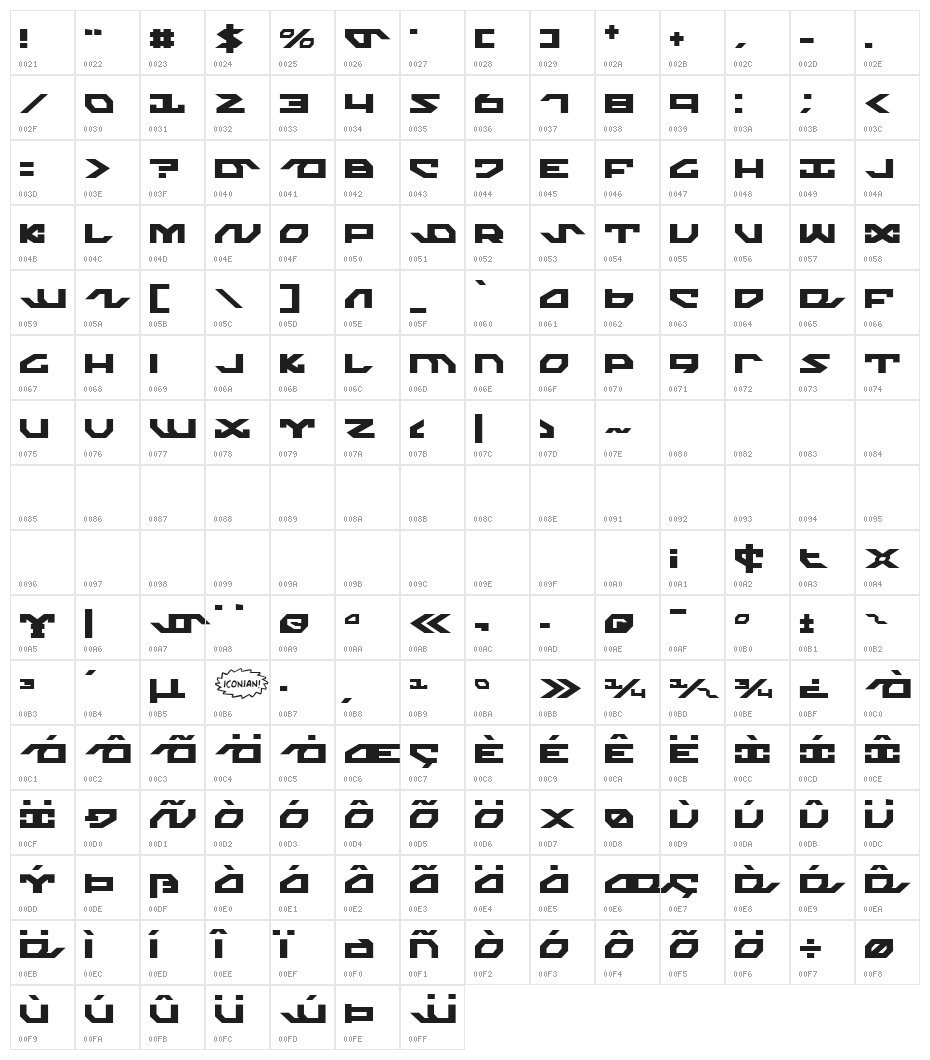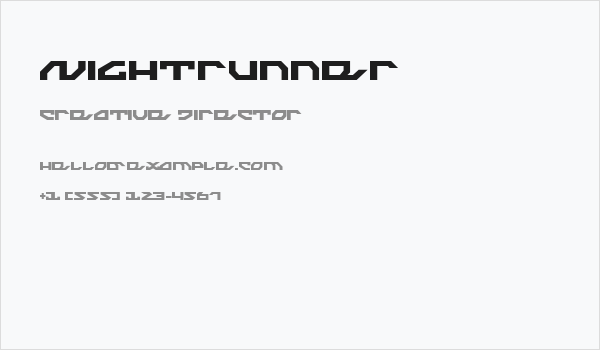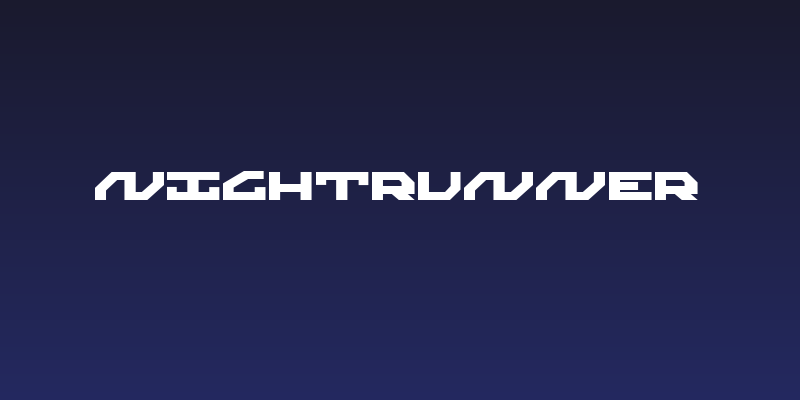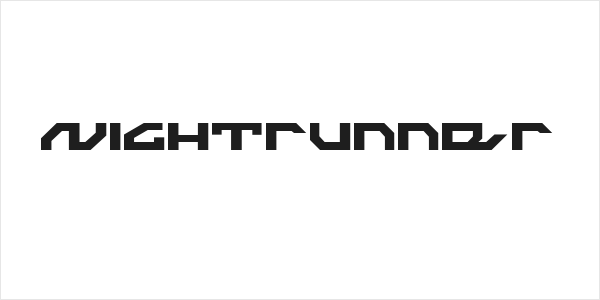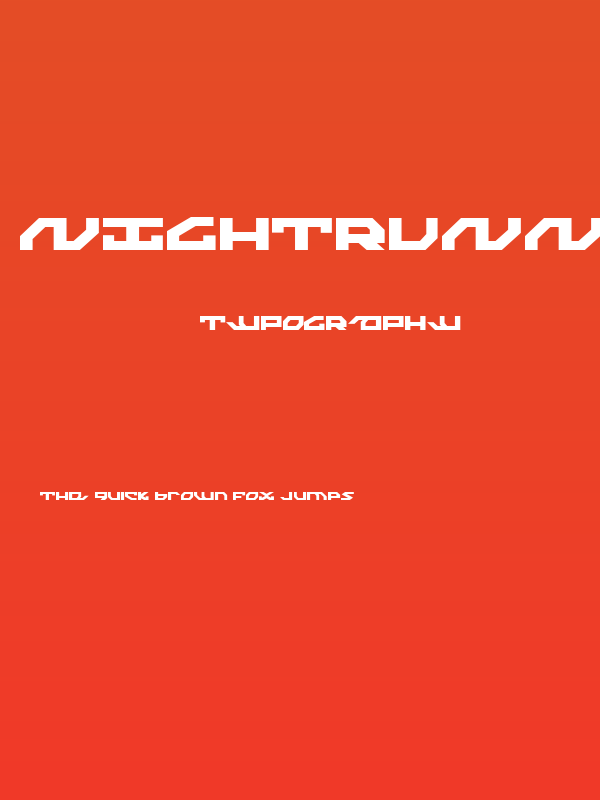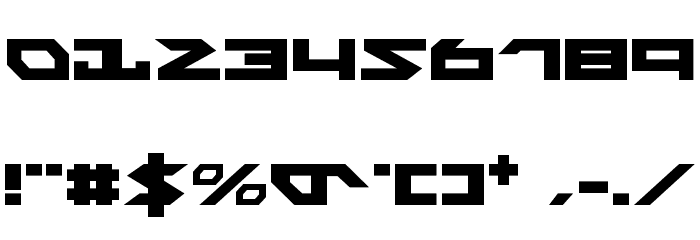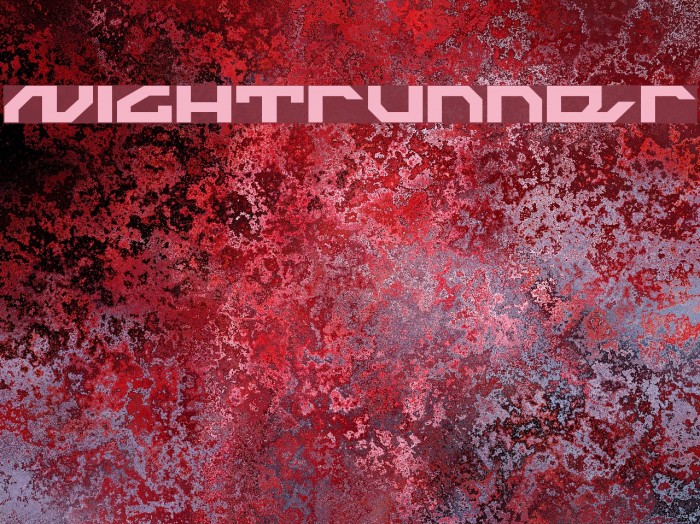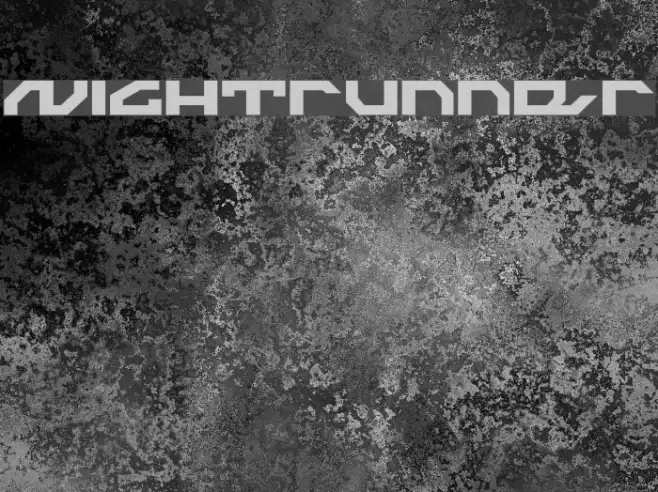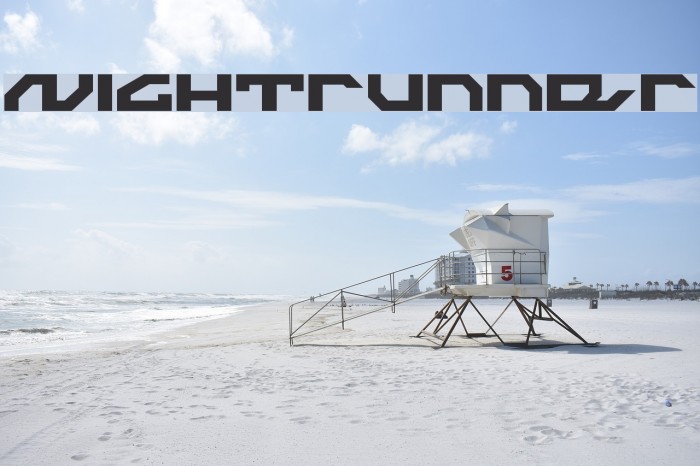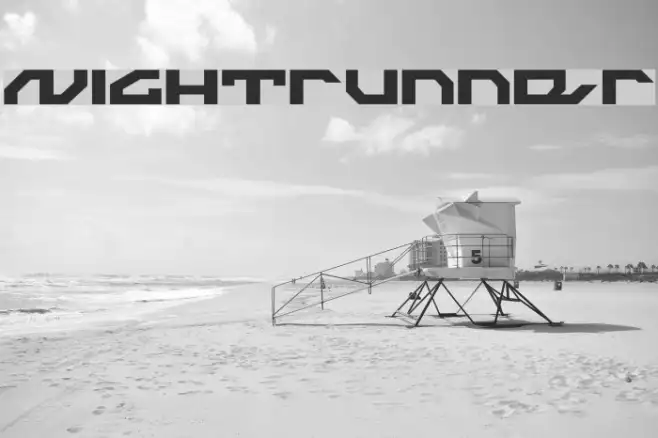
Nightrunner Font
Nightrunner Description
This font features a bold, futuristic design with sharp angles and geometric shapes. The characters are constructed with a distinct, edgy style that gives a sense of movement and energy. The uppercase and lowercase letters share a consistent angular theme, while the numbers and special characters maintain the same boldness and sharpness. The font's unique appearance makes it stand out, ideal for projects that require a modern and dynamic look.
| Proposed Projects | Ideal for sci-fi themed designs, video game graphics, tech branding, and modern posters. |